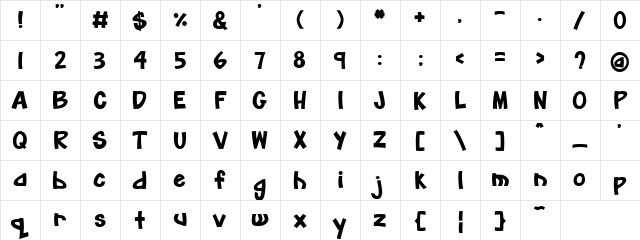
DJ Big Stick Regular
Design Context for DJ Big Stick Typeface
DJ Big Stick is a composed and adaptable typeface that performs quietly and consistently across a wide range of design contexts.